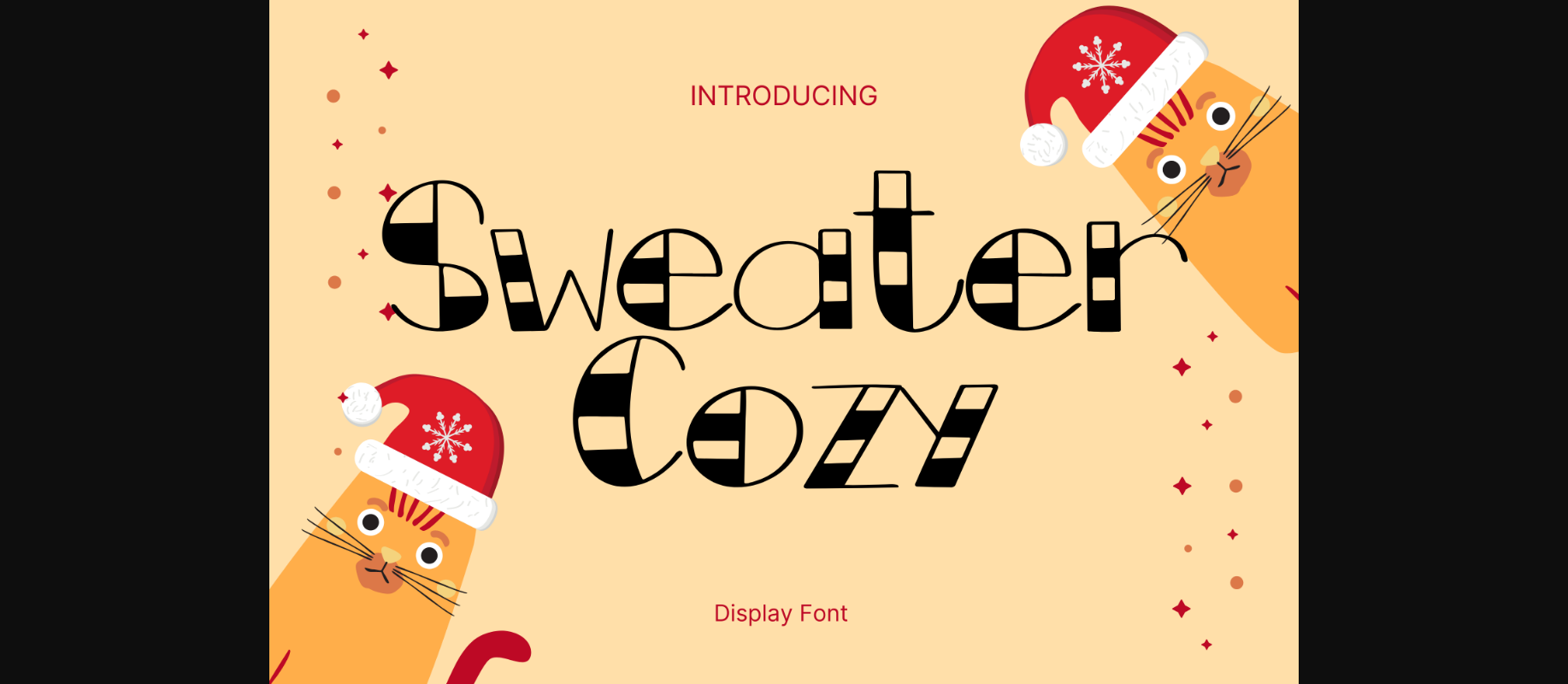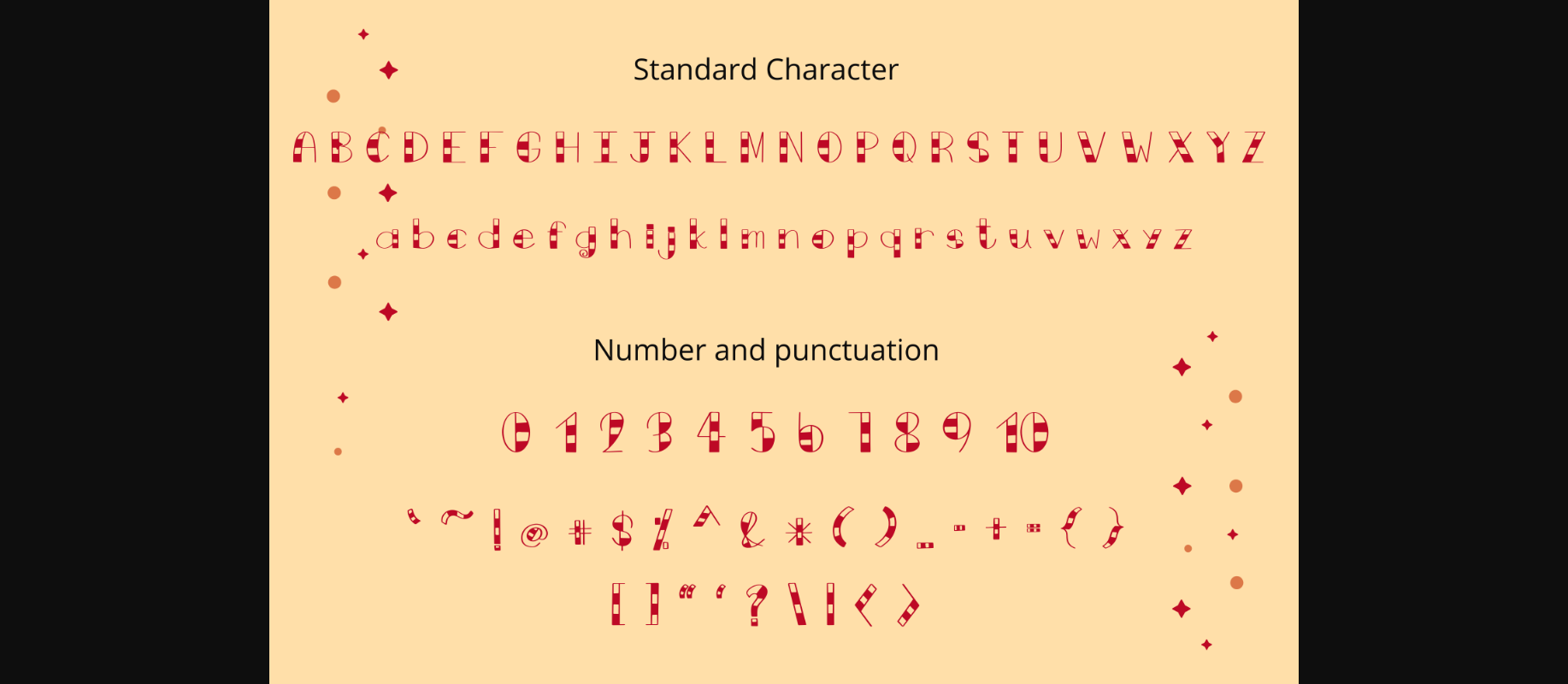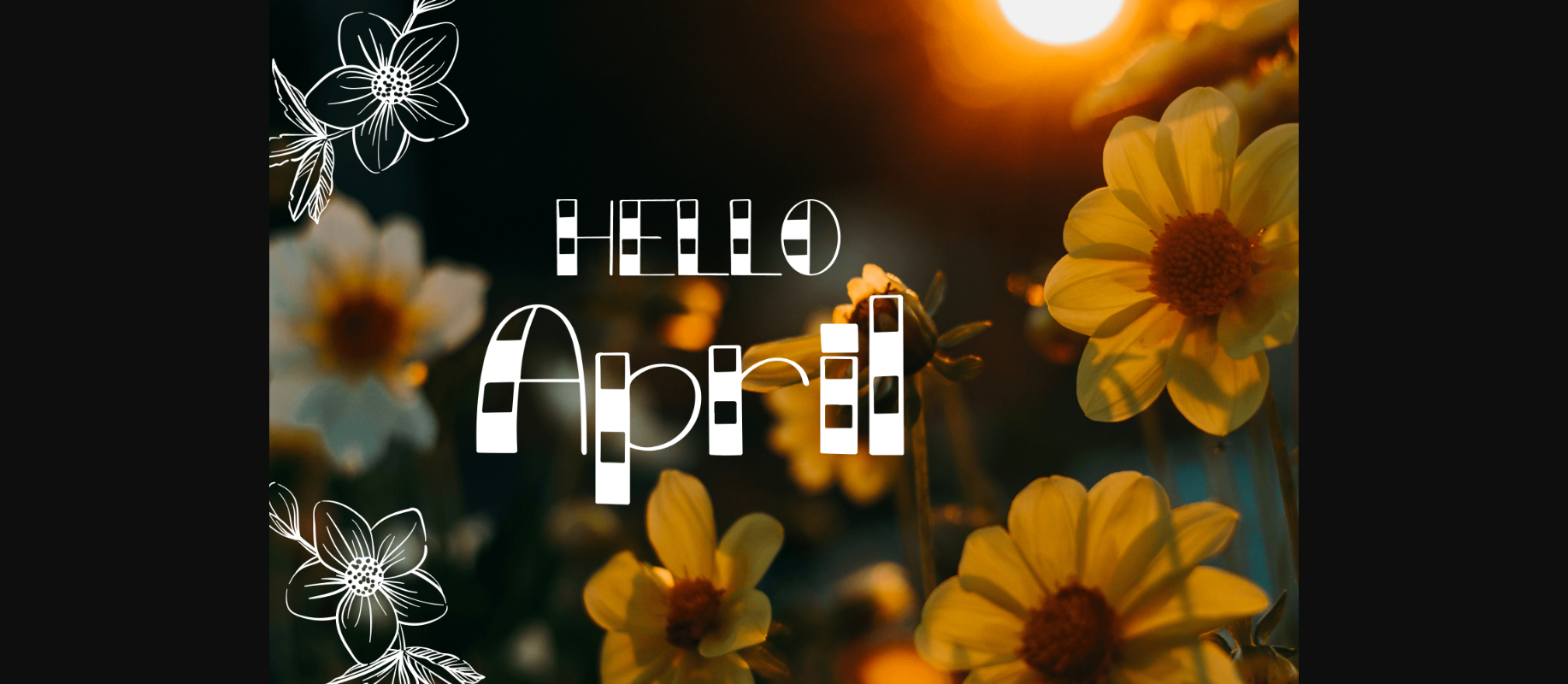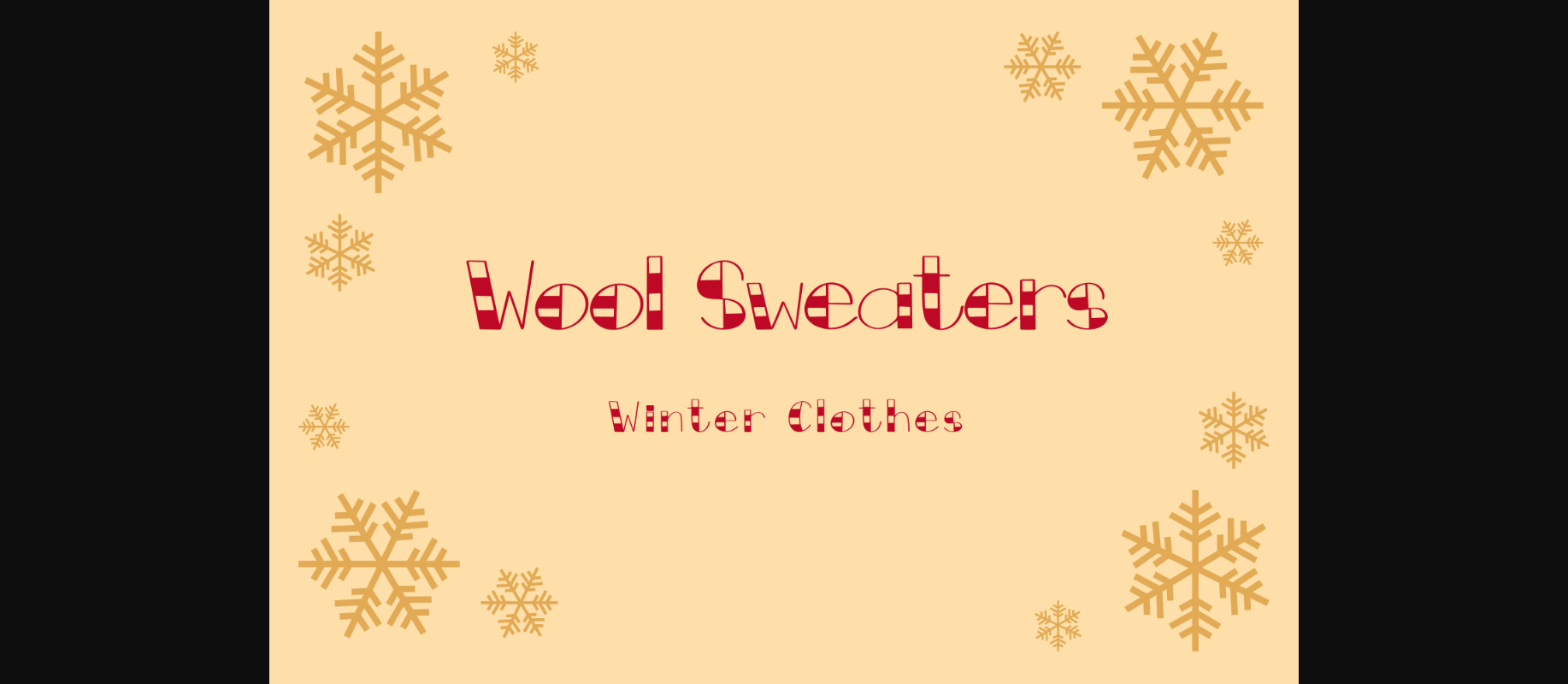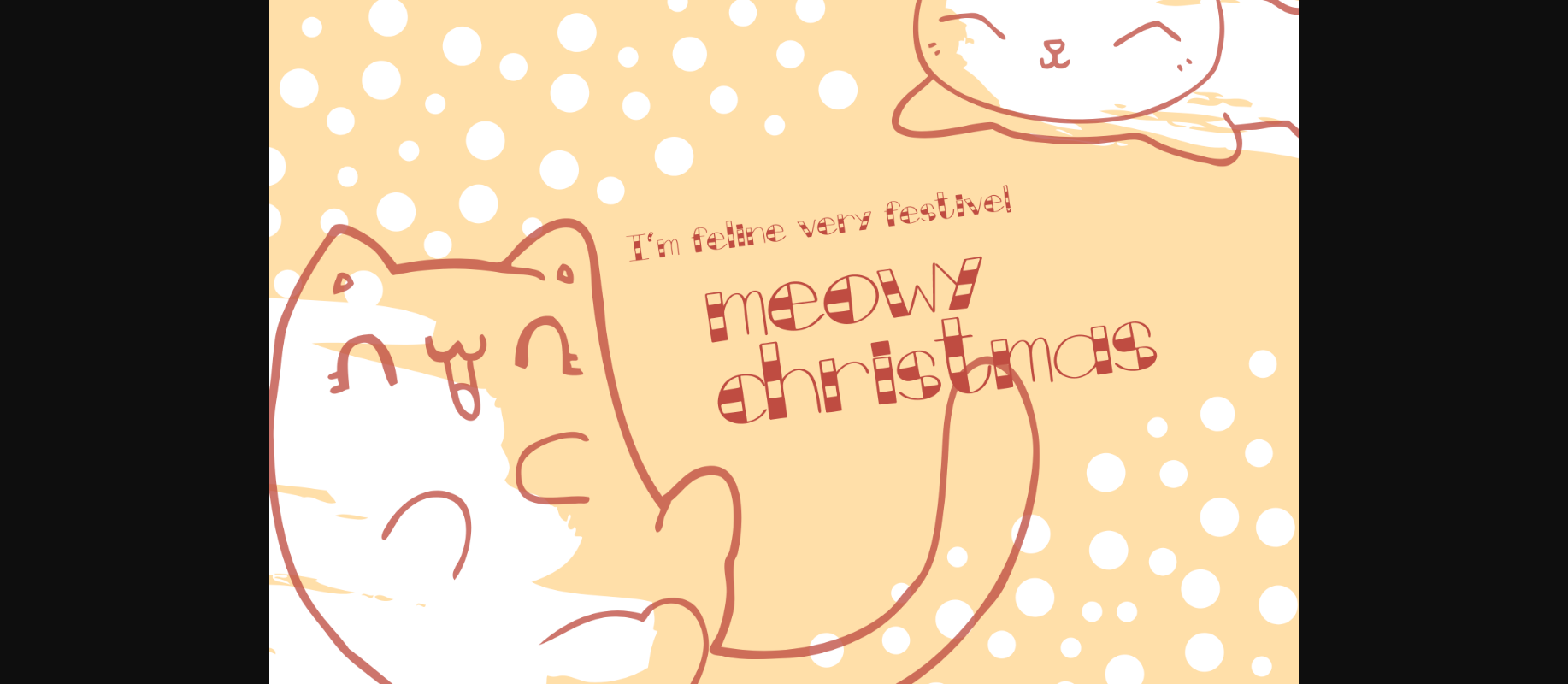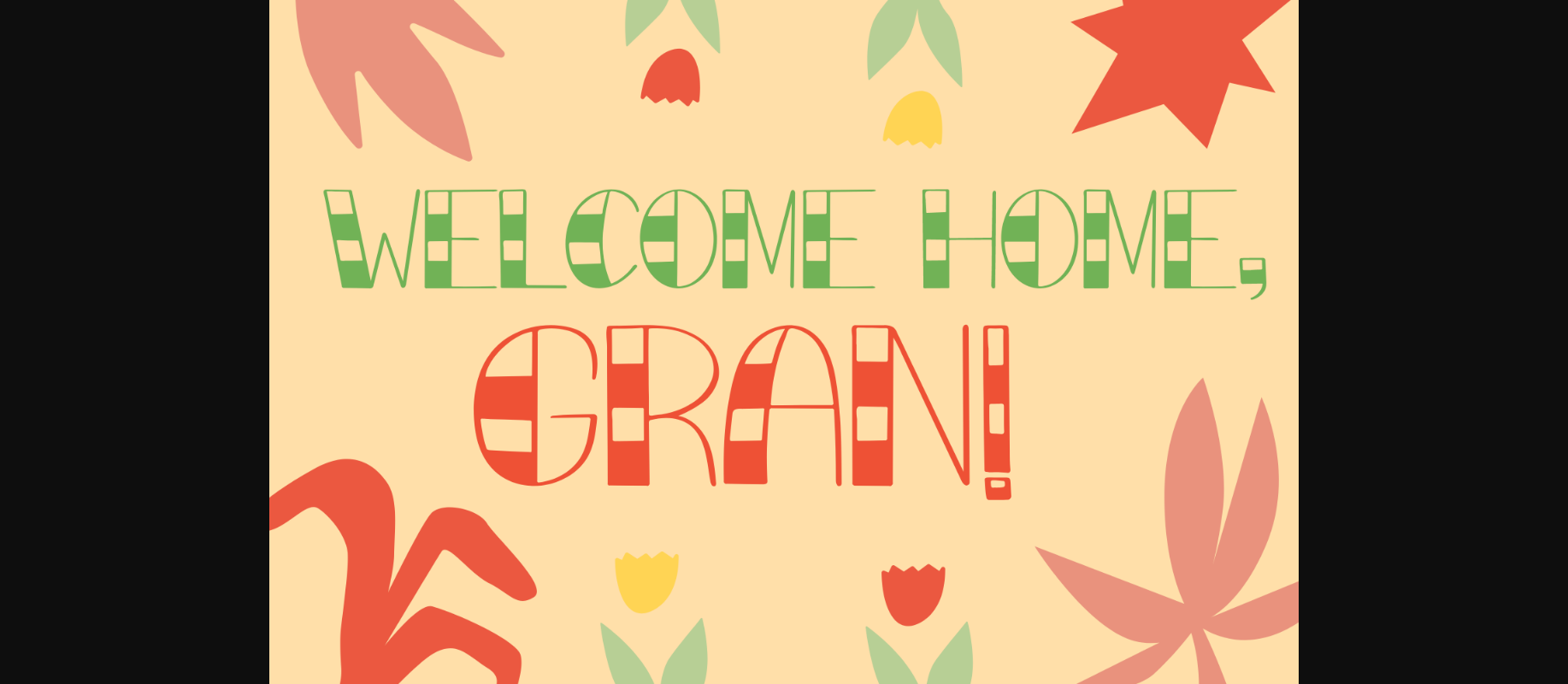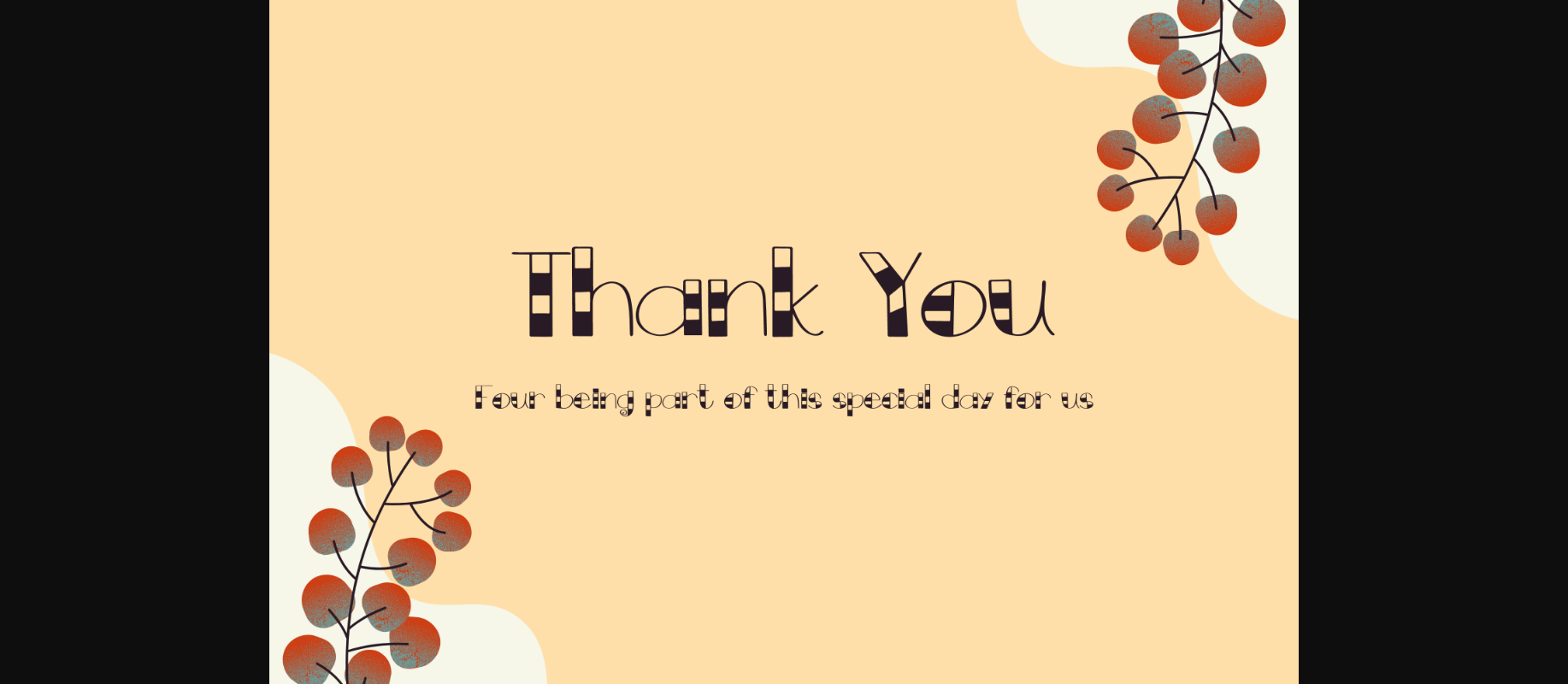
Sweater Cozy Font
About Sweater Cozy Font
Sweater Cozy is a whimsical and cute decorative font. It can easily be matched to an incredibly large set of projects, so add it to your creative ideas, and notice how it makes them stand out!